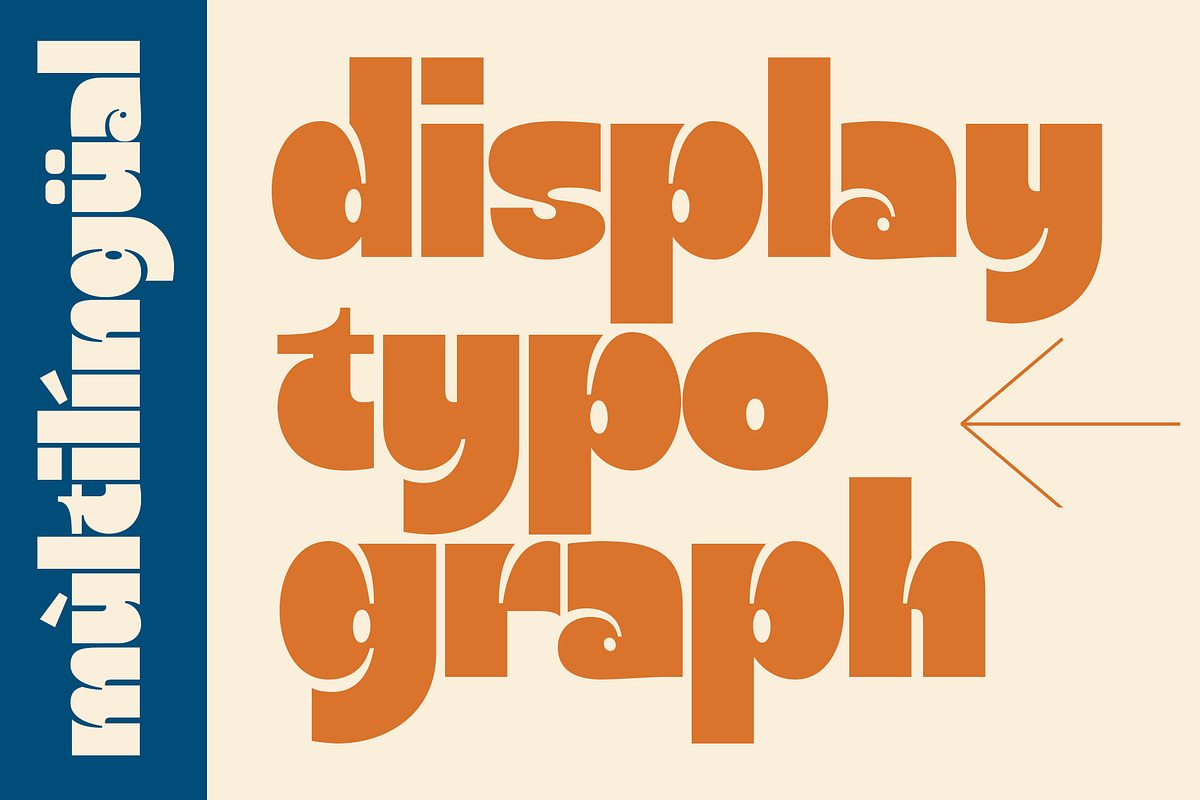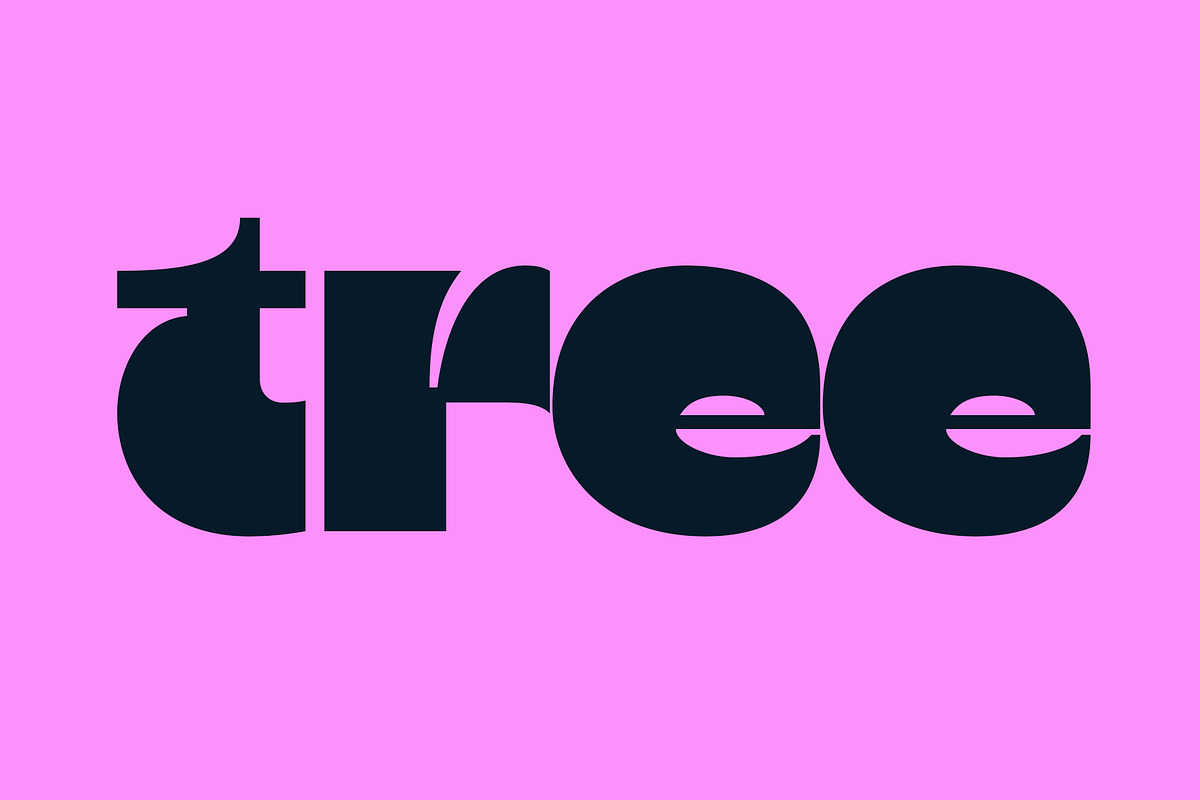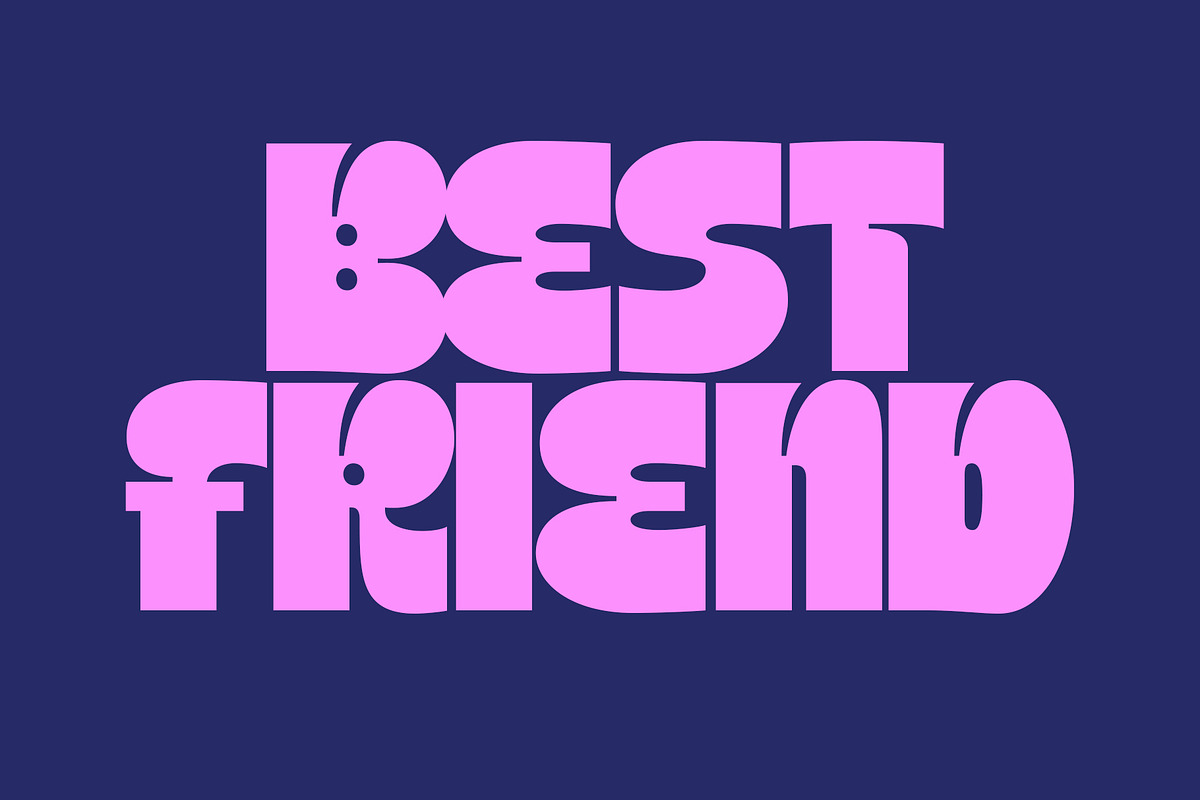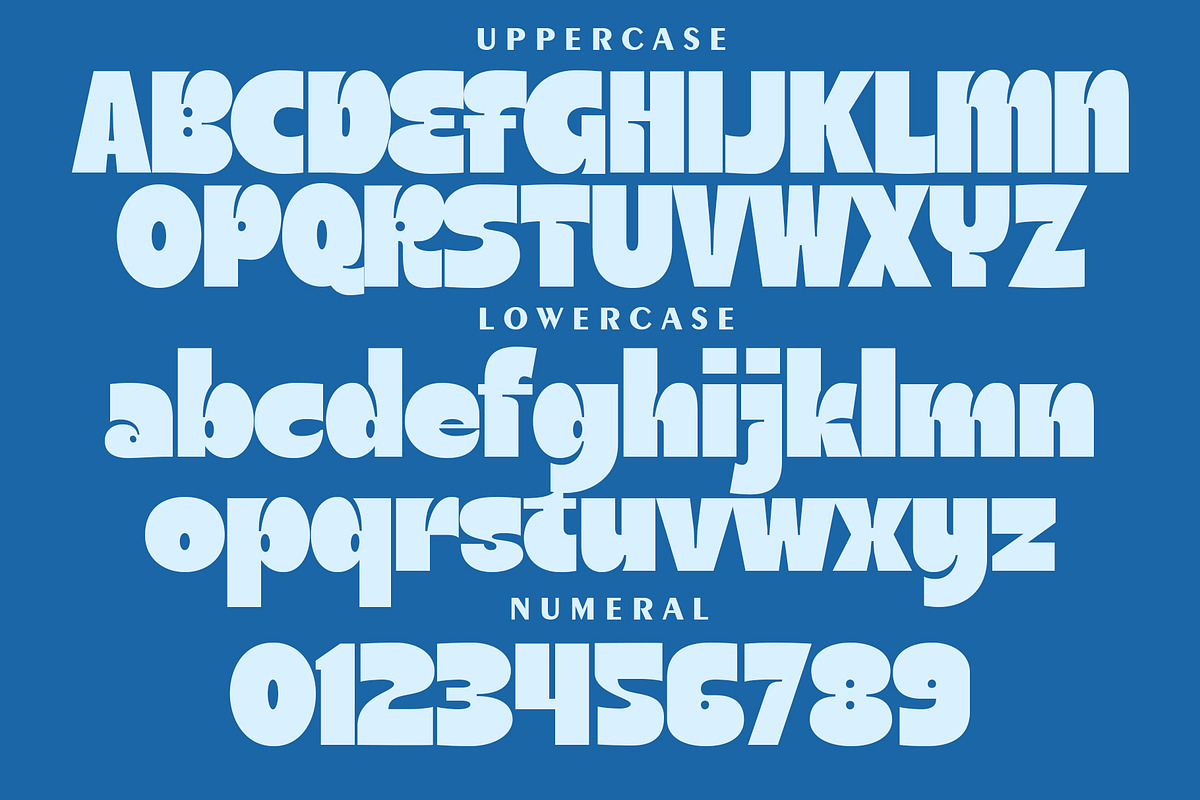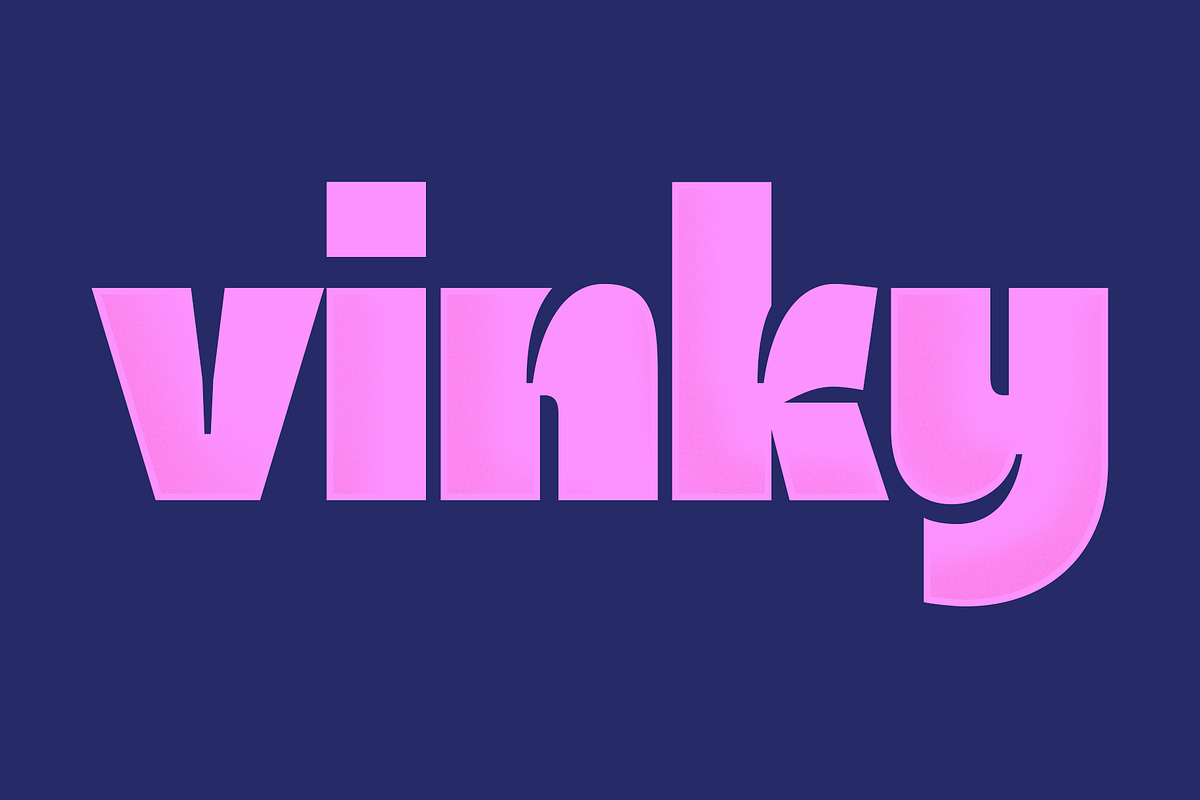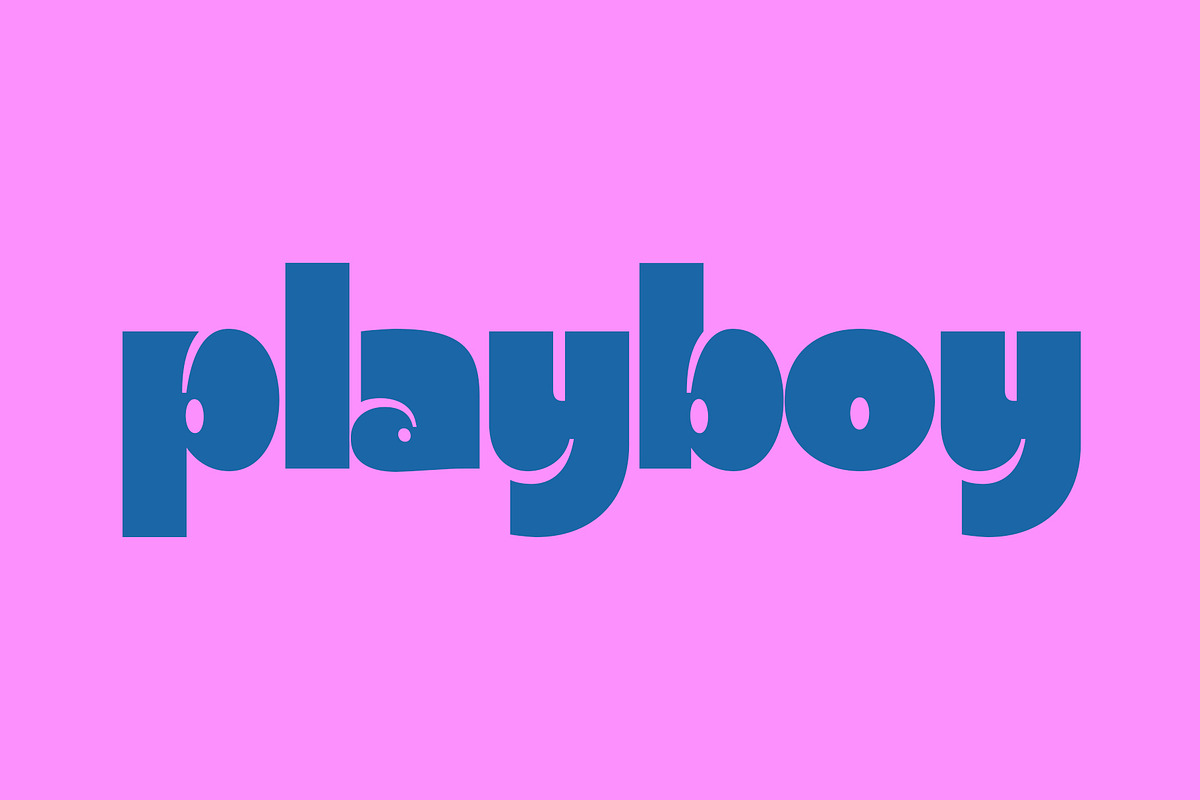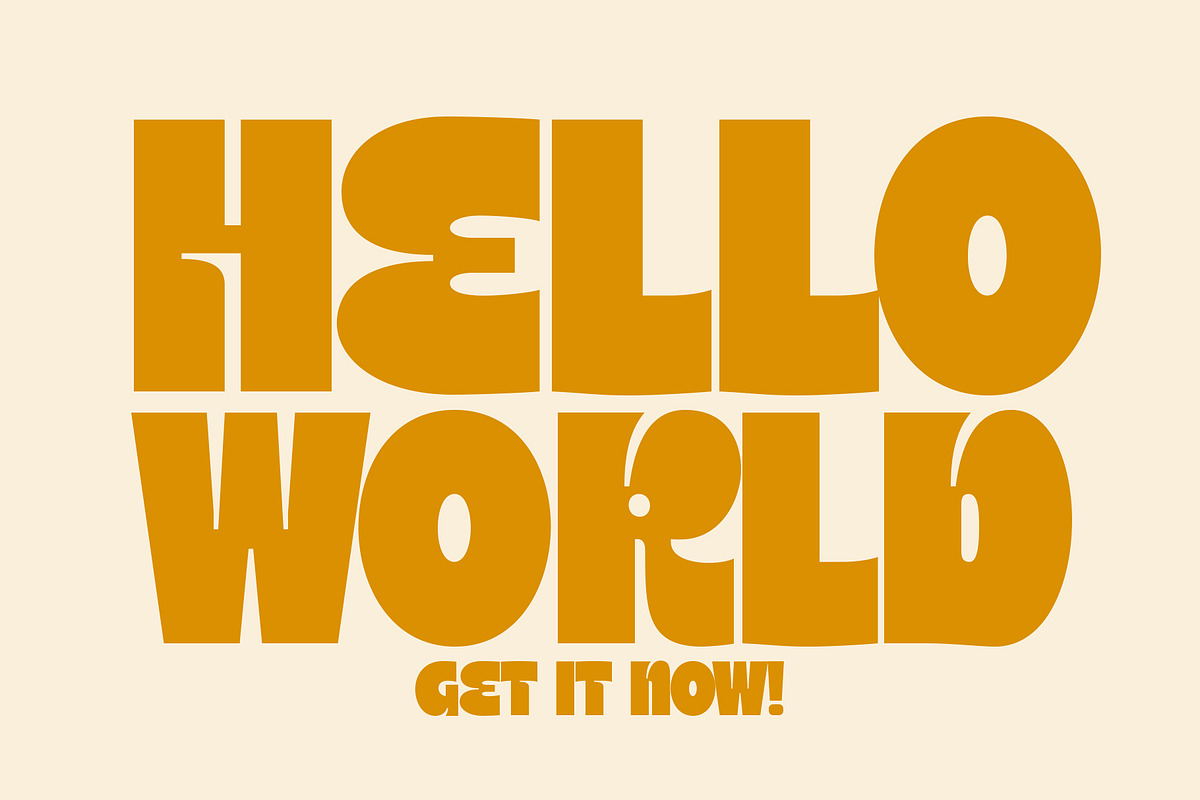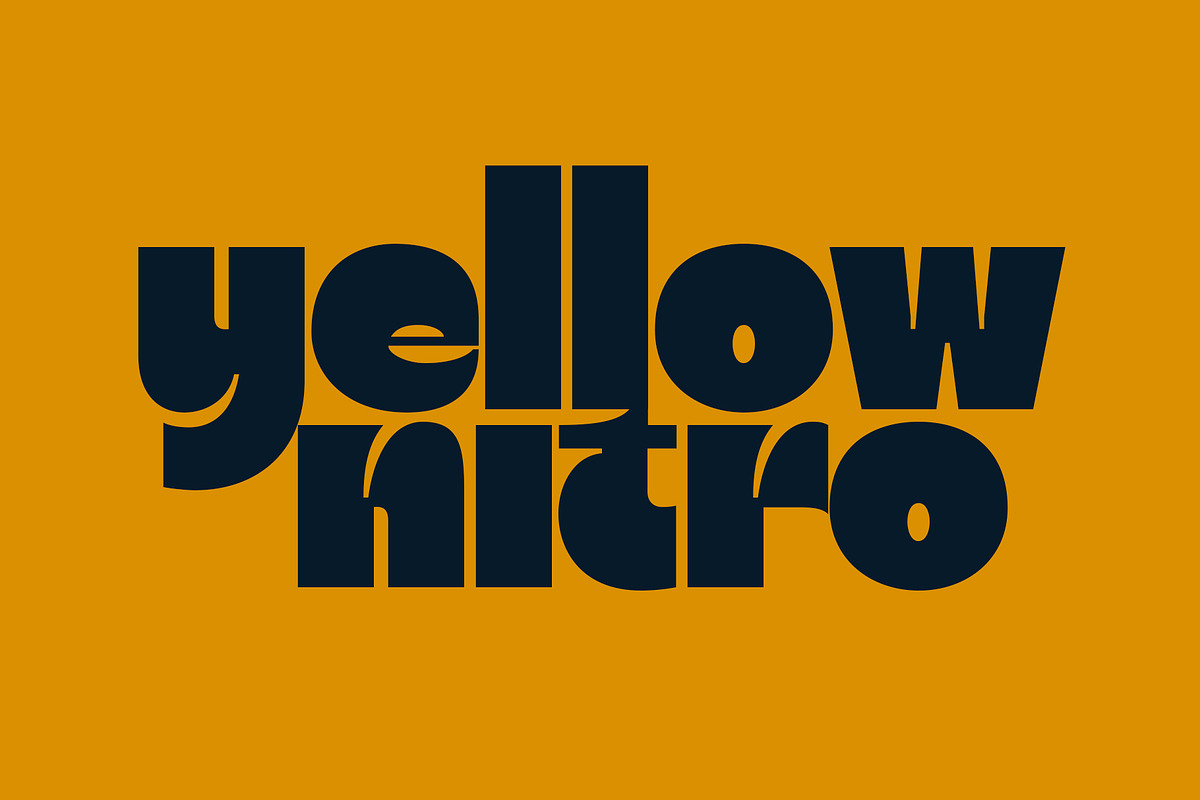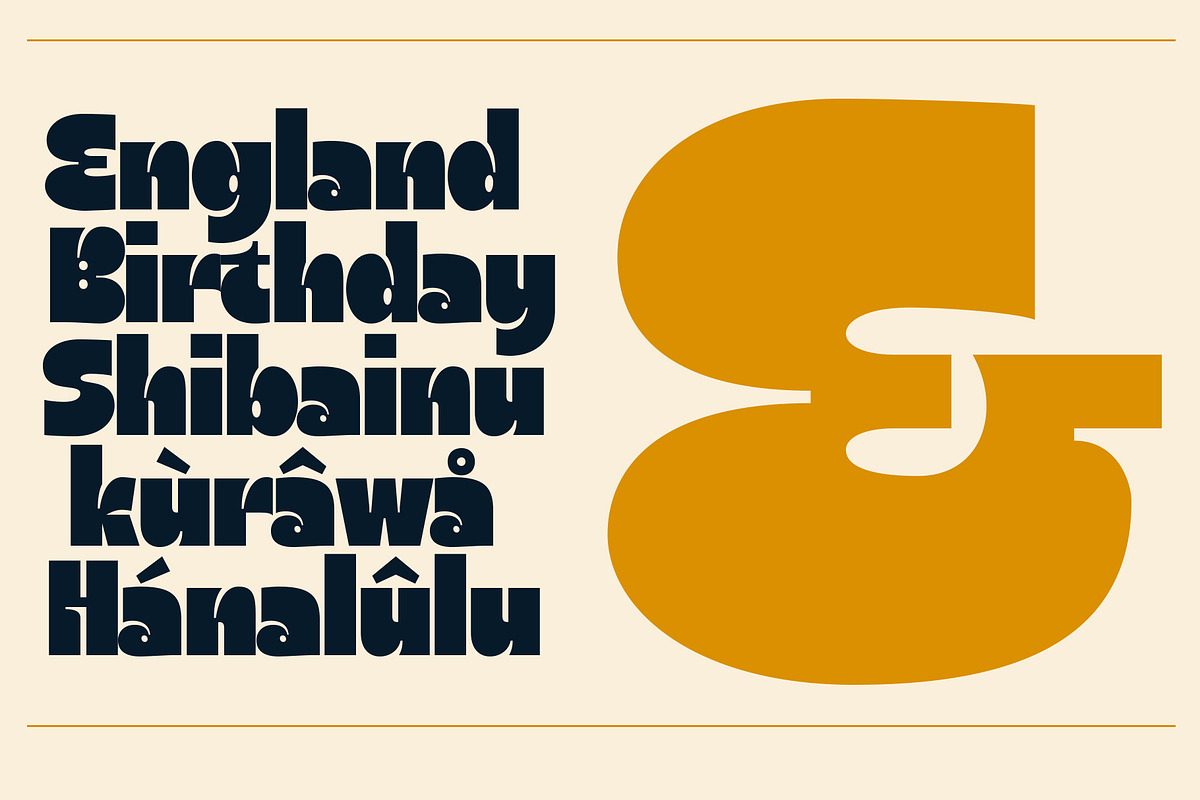
Vinky
Hello everyone, This time I would like to introduce a new product, an eccentric font with a childhood style, a little retro and bold. with the name "Vinky". Of course it will be very suitable for a headline design, be it digital or print media. Likewise, if you use this font for your product design, of course it will look quirky and stylish.